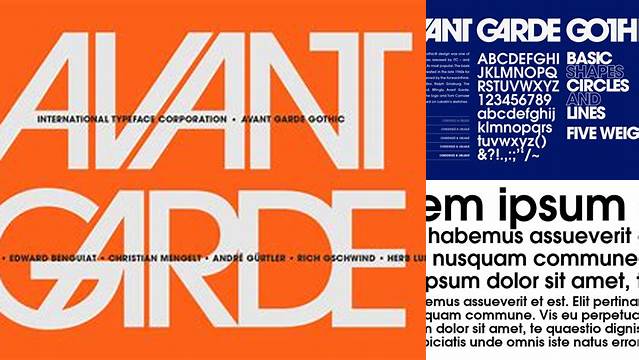
H2: Understanding the ITC Avant Garde Font Family: Styles and Variations
Let's talk about the ITC Avant Garde font family. This isn't just one font; it's a whole family, offering a variety of styles to fit different design needs. You'll find everything from the original, bold versions to light, condensed, and extended styles. This variety gives you plenty of choices to create visually appealing designs. The original ITC Avant Garde font features distinctive geometric letterforms, providing a modern and clean look. Then you have the ITC Avant Garde Gothic, the more commonly known version, famous for its versatility. This version is excellent for headlines, titles, and branding because of its strong visual impact. The ITC Avant Garde condensed and extended variations allow you to fit text into tight spaces or create a more expansive look. These variations are great for different scenarios. The condensed styles are efficient for fitting text in smaller areas, like in-text or sidebars. The extended styles give a more spacious feeling, perfect for making an impact. The light and bold weights add more to your design options, enabling you to create contrasts and emphasize specific sections. Always select a font style that aligns with your design's overall theme and tone, and use the different weights to create a visual hierarchy. So, whether you're creating a website, designing a logo, or working on print materials, the ITC Avant Garde family has a style that will fit your needs. Each variation offers a unique character, allowing you to mix and match for visual interest and readability. Don't be afraid to experiment with various styles to discover what best suits your design! It is crucial to familiarize yourself with all the available styles within the ITC Avant Garde family to unlock its full potential.
H3: Exploring the Different Styles Within the ITC Avant Garde Font Family
Let's dive deeper into the many styles within the ITC Avant Garde font family. ITC Avant Garde Gothic is available in several weights, from light to heavy, and various widths, offering versatility for designers. The regular style of ITC Avant Garde is a good starting point, providing clean and legible text for various applications. Then you have the bold version, which is excellent for headlines and titles, ensuring they grab attention. Condensed versions are great for fitting text in compact spaces without losing impact. Extended versions offer a wider appearance, making them perfect for headlines that need a strong visual impact. Each style offers a different feel, allowing you to make your design stand out. The light weights are useful for creating a more subtle, elegant look, while the extra bold styles are for high-impact statements. Understanding how these variations function will let you create a design with great visual interest. When using the ITC Avant Garde family, consider the context. The selection will directly affect the overall feel of your design. By utilizing the correct styles, you'll get a cohesive and visually appealing outcome. So, start by understanding how each variation works. This will help you create designs that are both beautiful and functional. Choosing the right style is essential for achieving the look you desire. You can create everything from bold branding to subtle, refined layouts. The variety of styles makes ITC Avant Garde a perfect choice for any designer wanting a modern and stylish font.